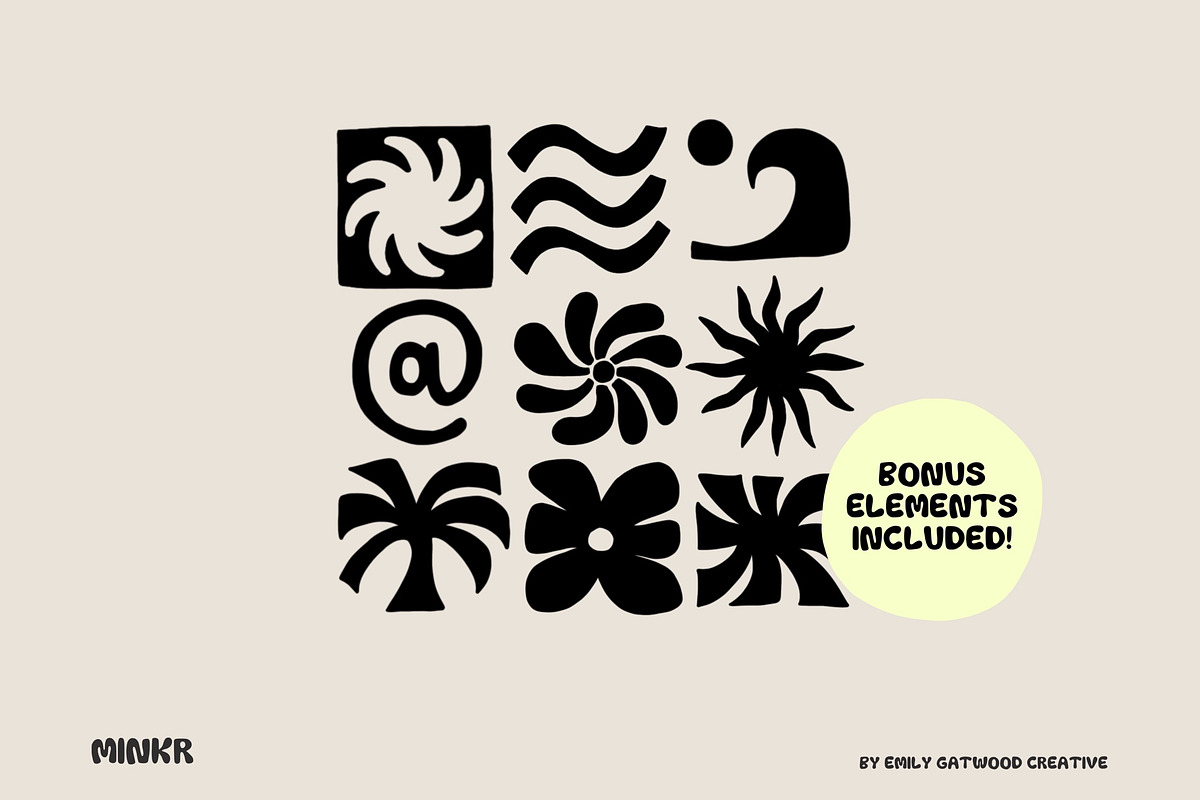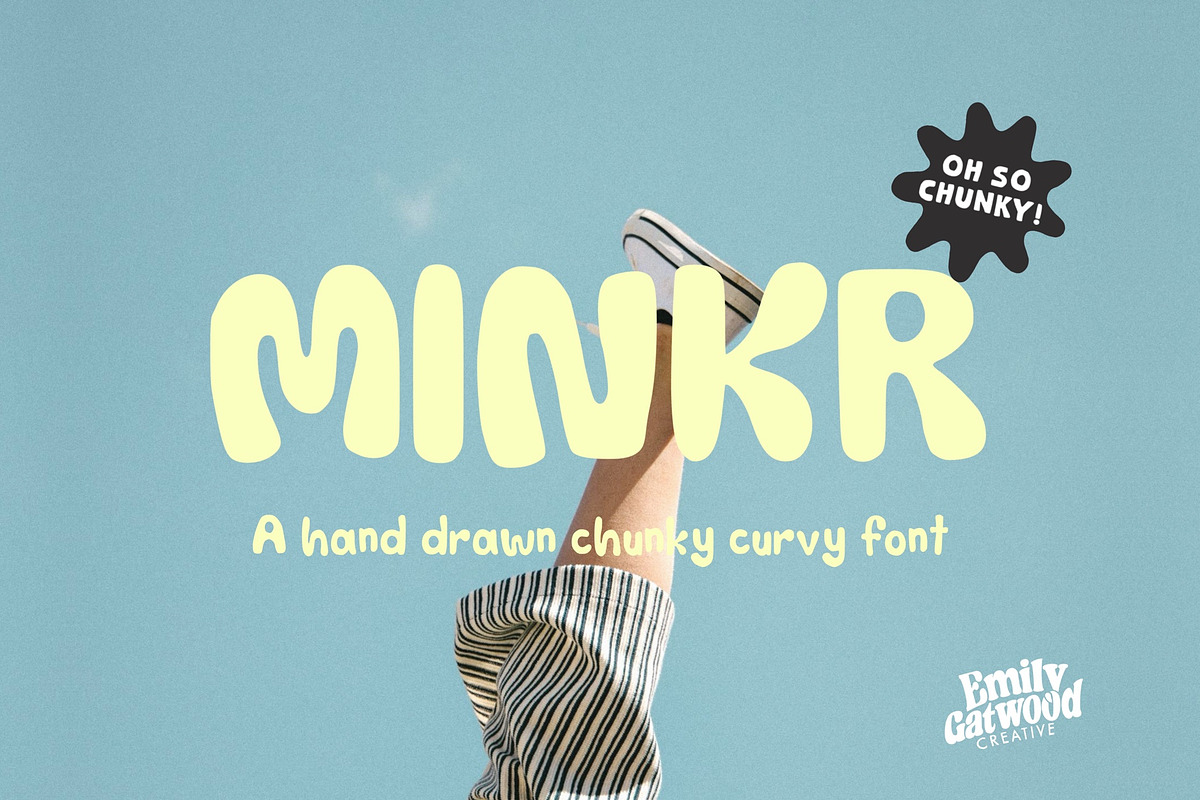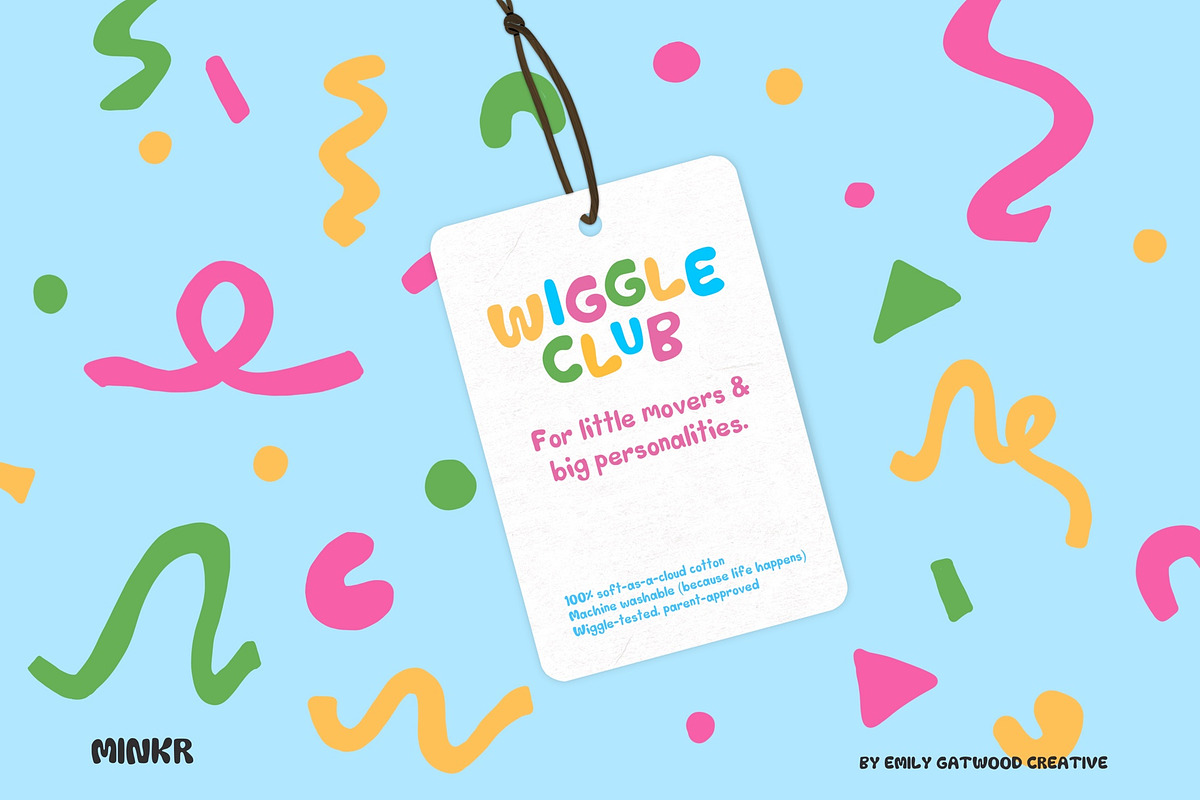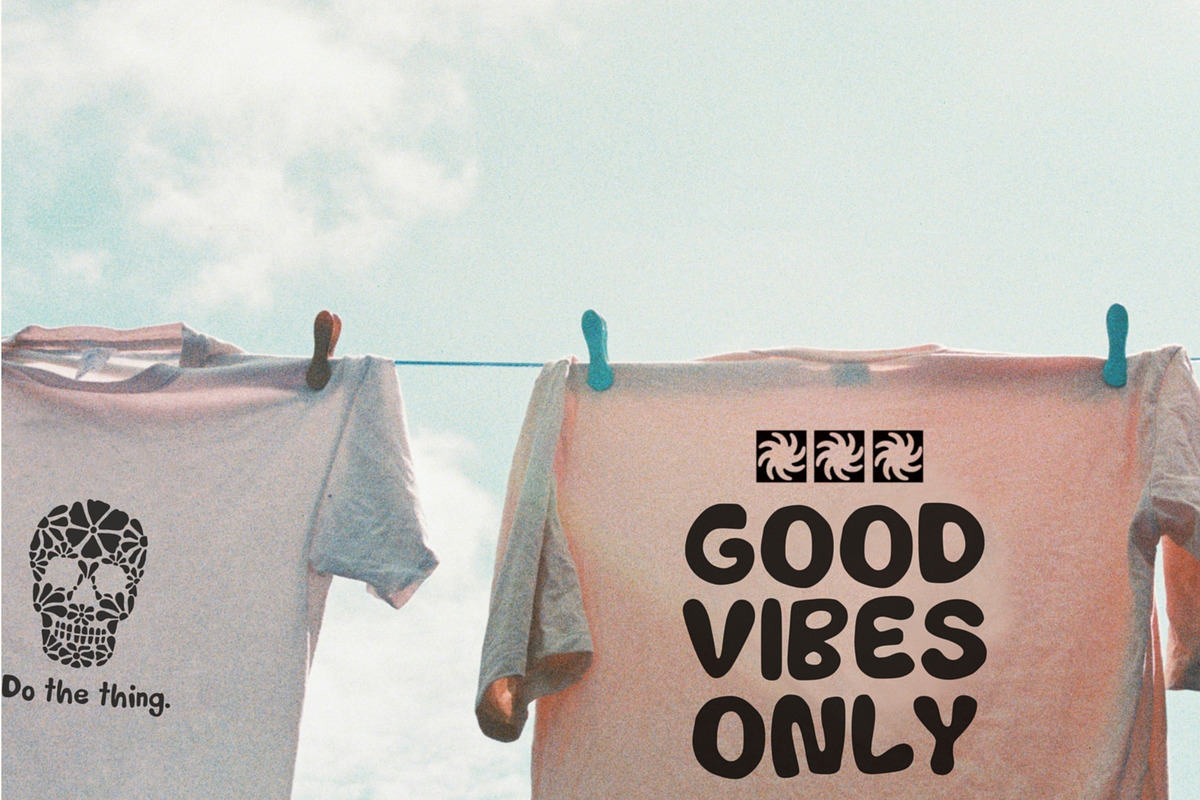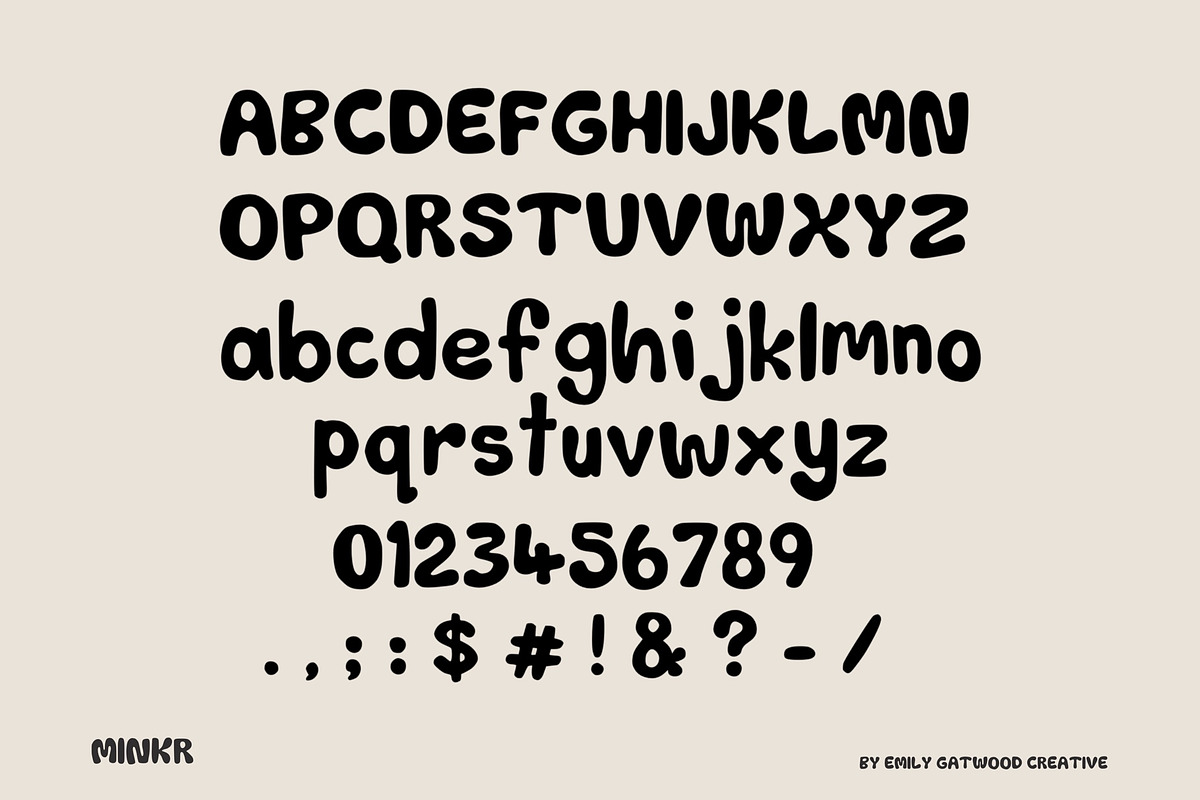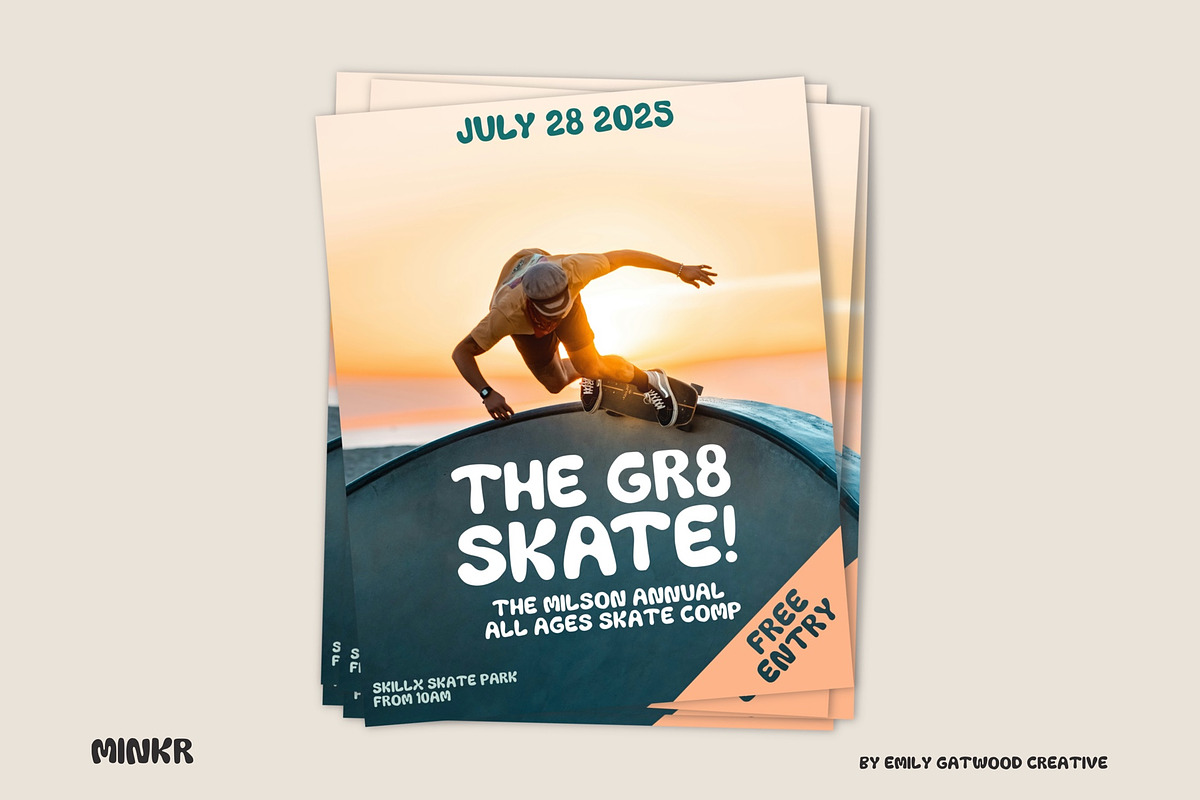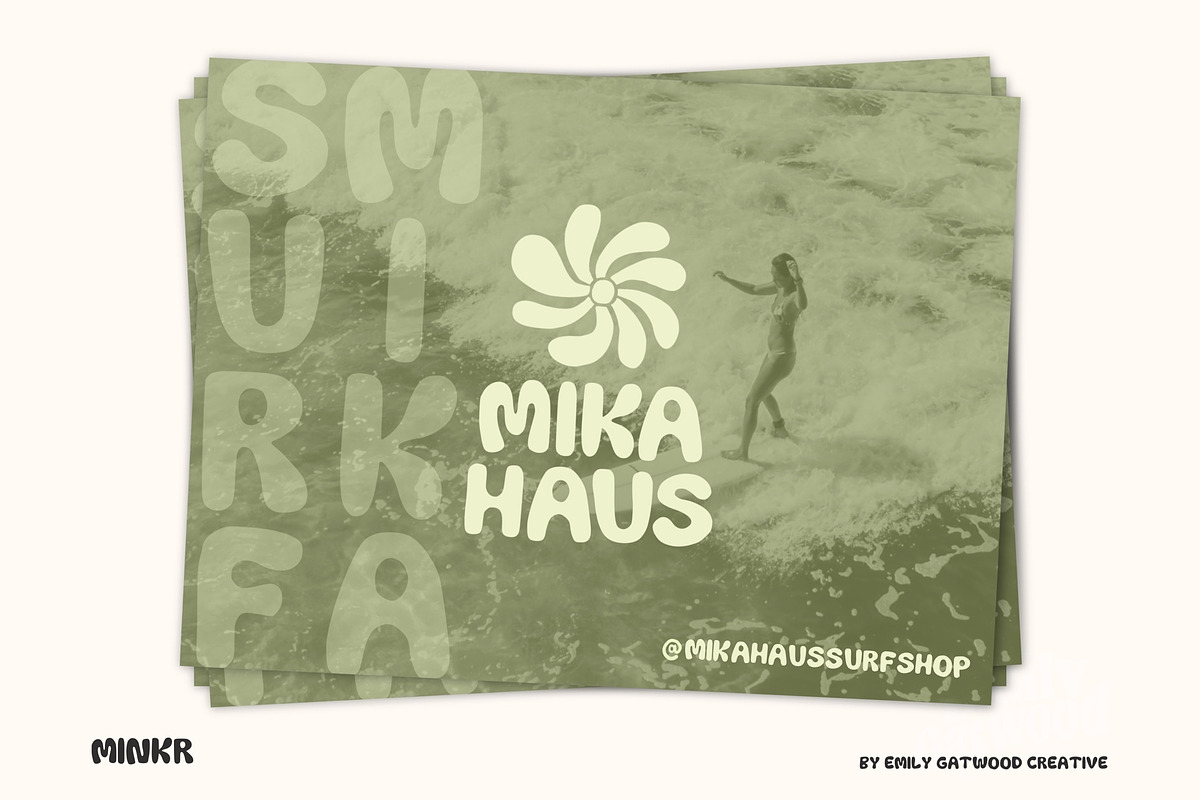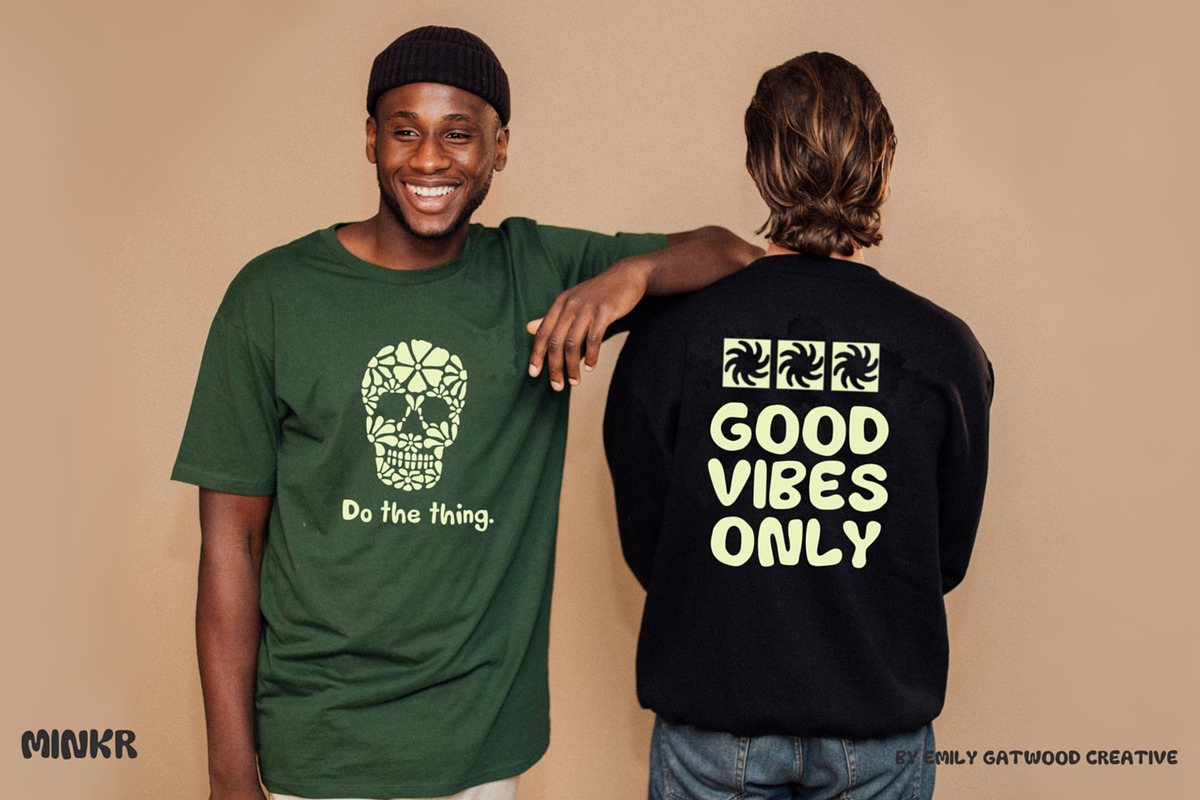
Minkr- perfectly imperfect & chunky
Say hello to Minkr — a hand-drawn, chunky little font with big personality. Born out of a deep love for funky curves and imperfect lines, Minkr doesn’t try to be perfect — and that’s exactly what makes it cool. She’s bold, confident, a little quirky, and totally unapologetic.
Whether you're designing a loud poster, a cute sticker pack, or branding that refuses to whisper, Minkr shows up like “yeah, I got this.” Sans serif, full of soul, and just the right amount of funky chaos, this font is perfect for projects that want to stand out without trying too hard.
Made by hand, with love (and a very messy desk). Also included bonus SVG. elements!